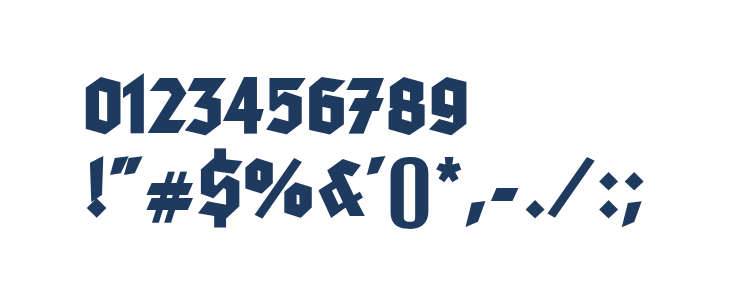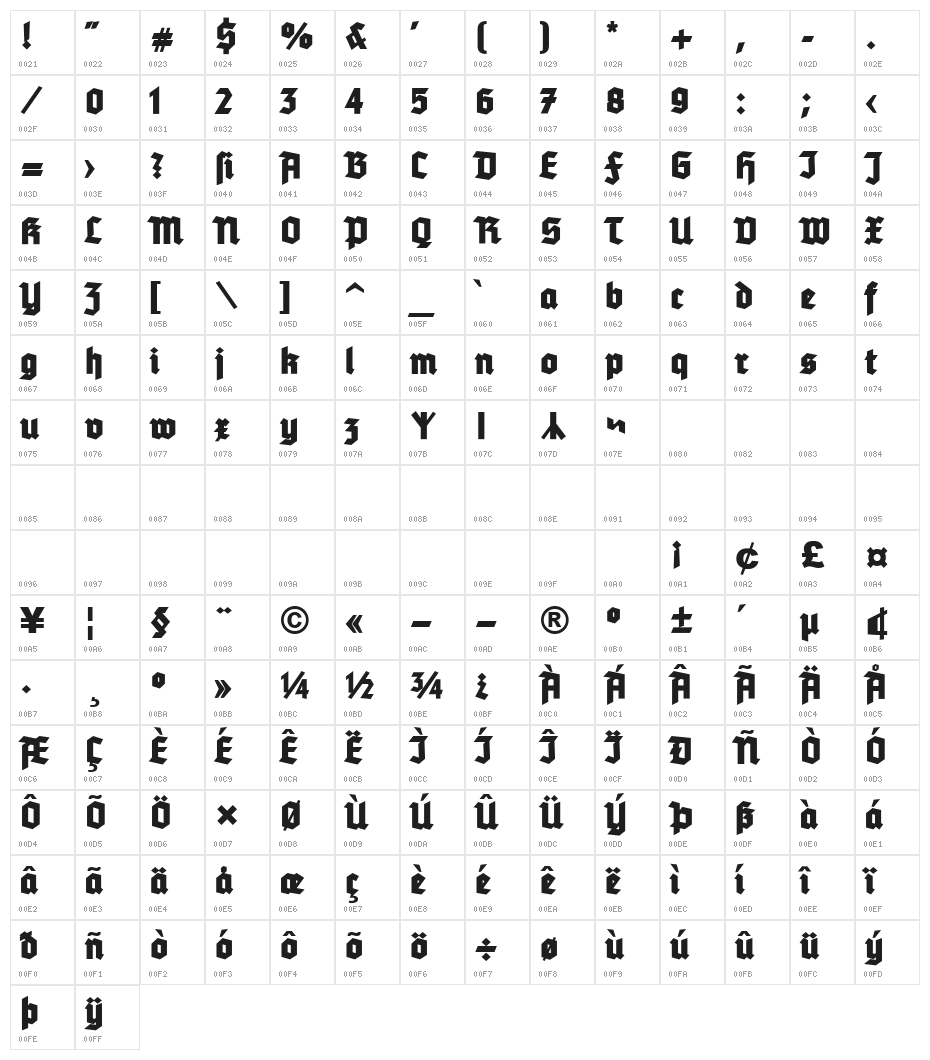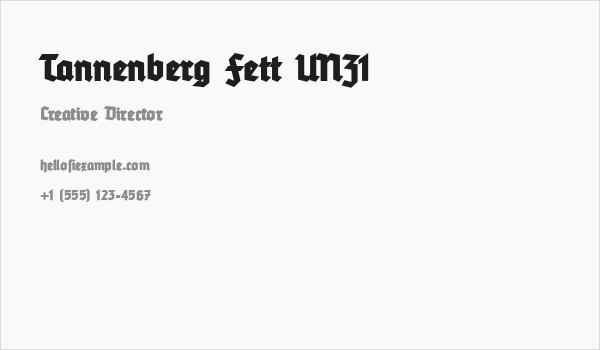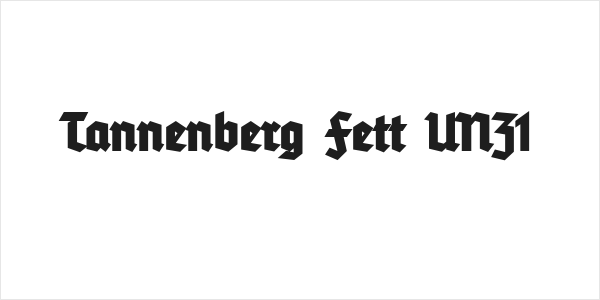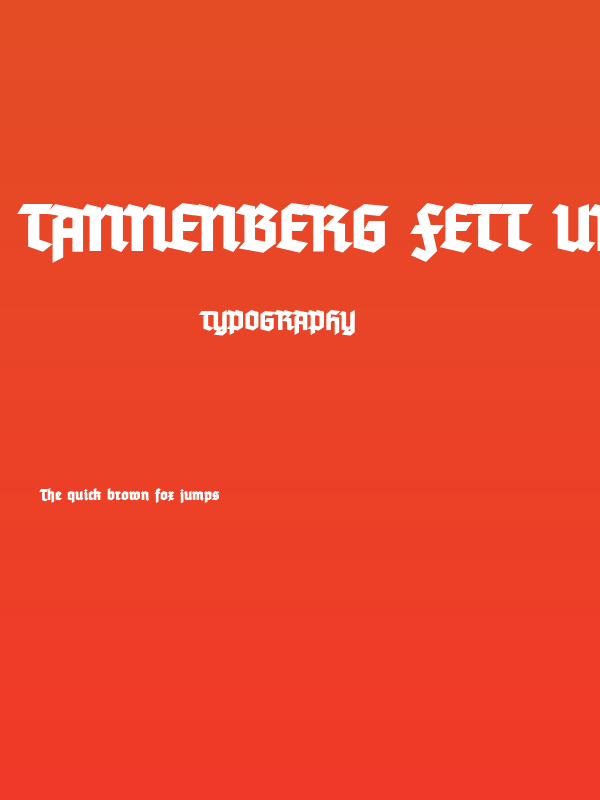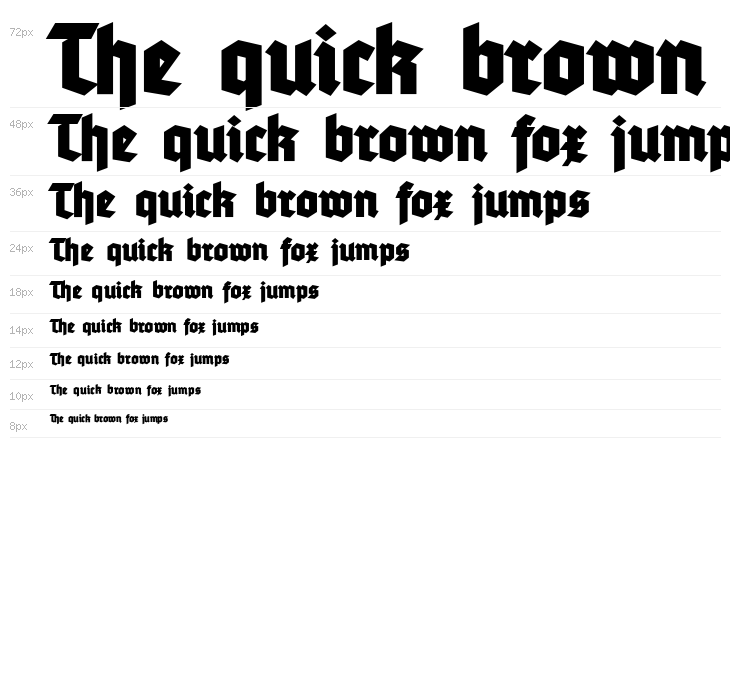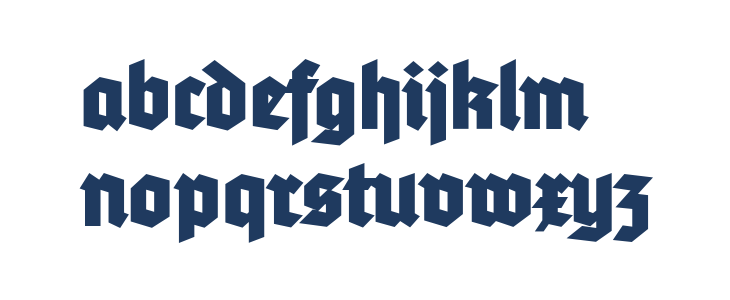
Tannenberg Fett UNZ1 Font
Tannenberg Fett UNZ1 Description
This font features a bold and striking blackletter style, characterized by its sharp, angular lines and dramatic presence. The uppercase and lowercase letters maintain a consistent gothic aesthetic, with strong vertical strokes and pointed serifs that evoke a sense of historical elegance. The numerals and special characters are designed to complement the overall style, ensuring a cohesive look across all text elements. This font's intricate design and bold weight make it ideal for creating impactful visual statements.